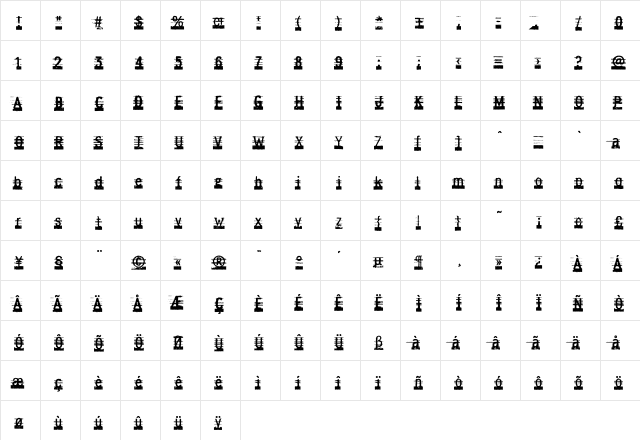
IndecisionCrossed Regular
Design Context for IndecisionCrossed Typeface
IndecisionCrossed is a composed and adaptable typeface that performs quietly and consistently across a wide range of design contexts.